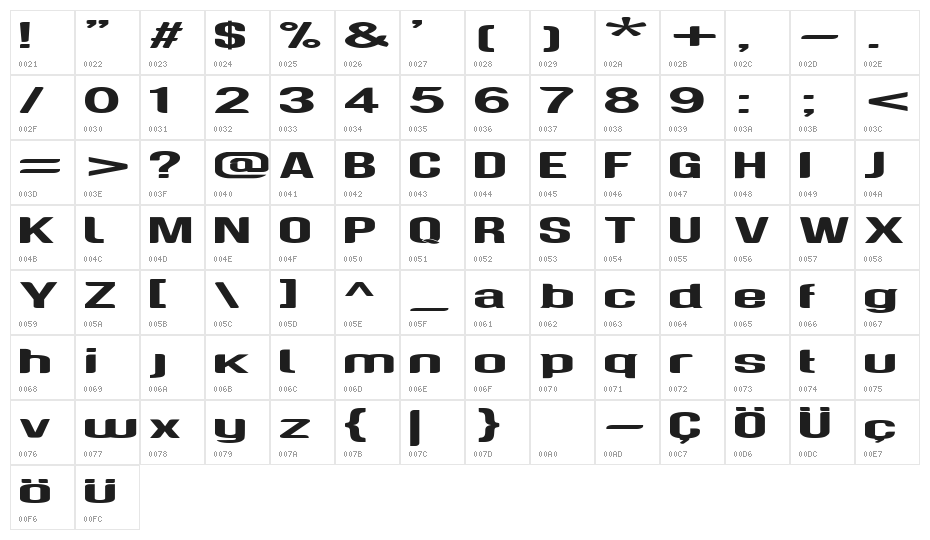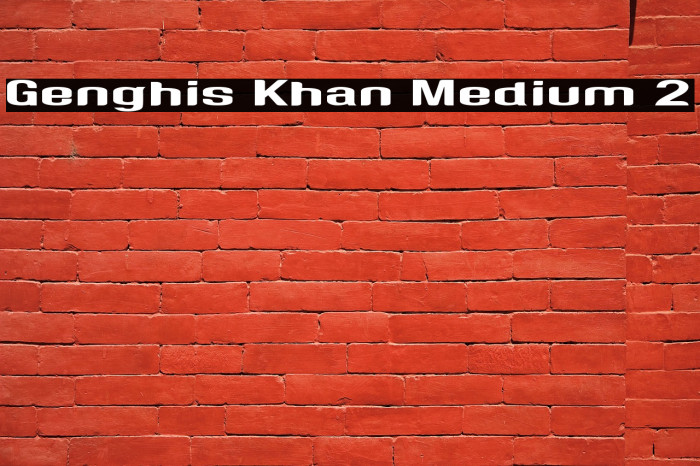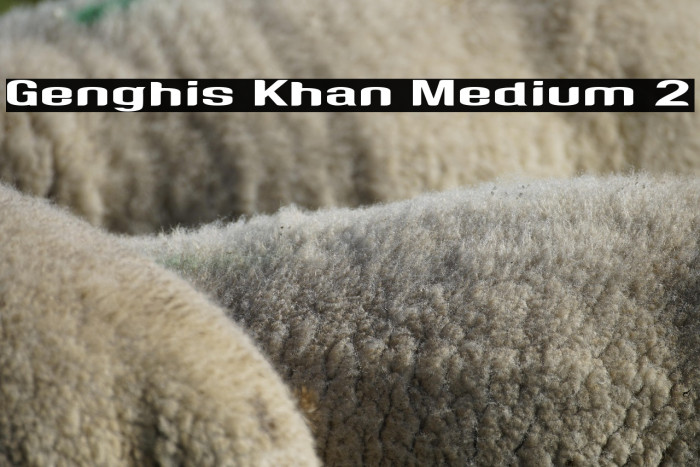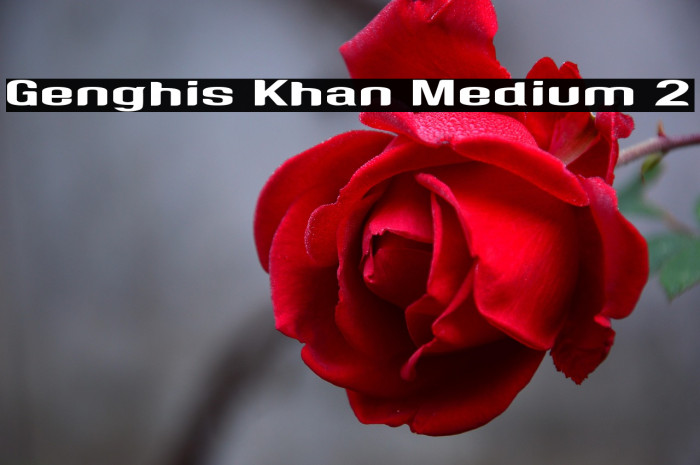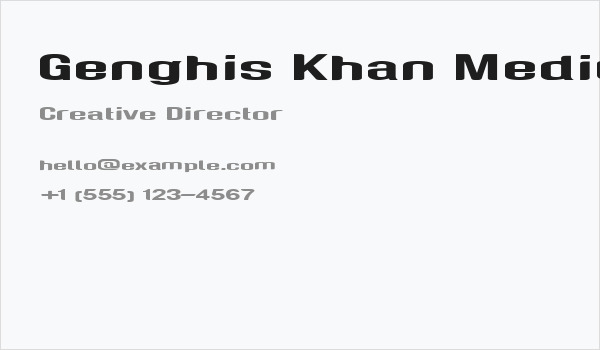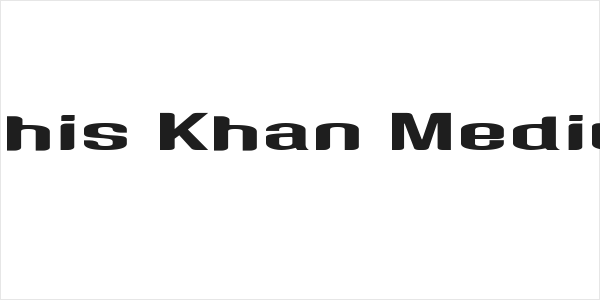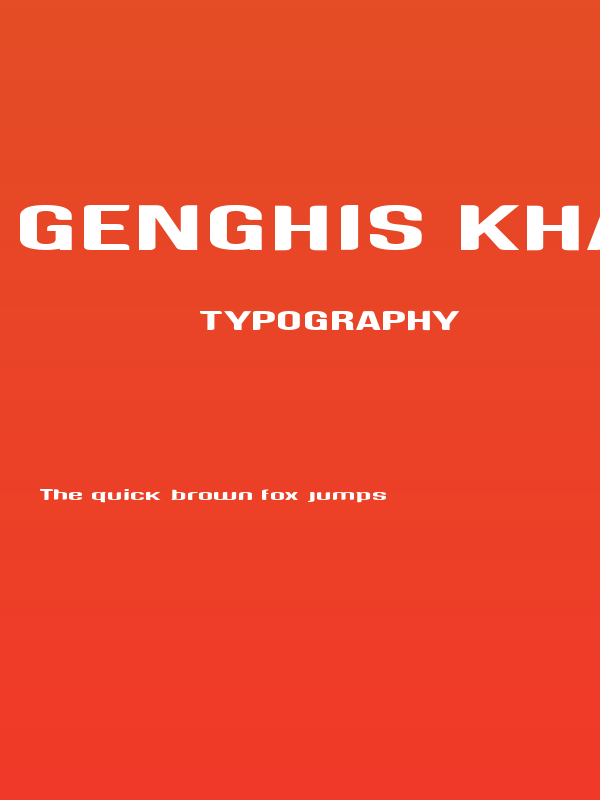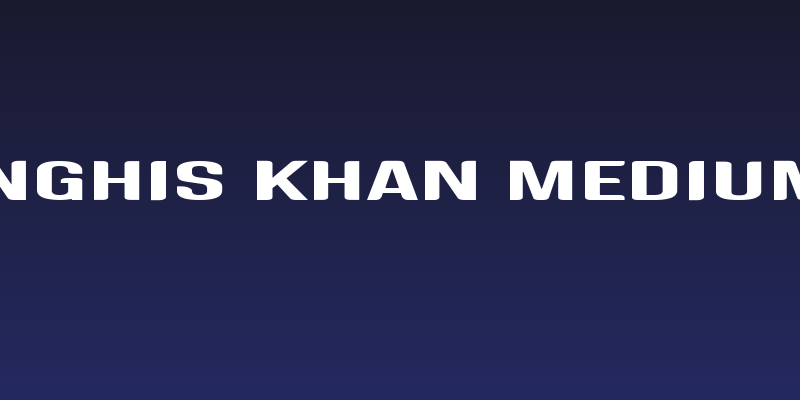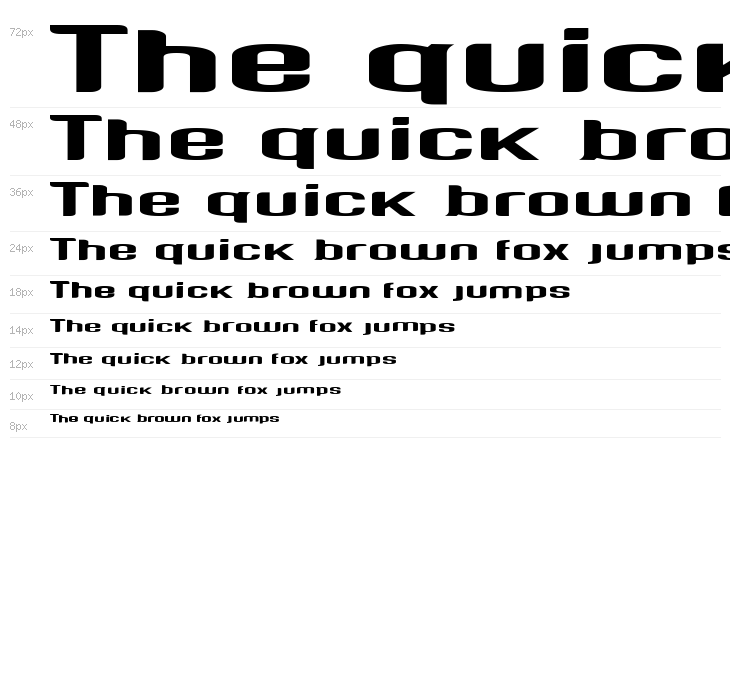
Genghis Khan Medium 2 Font
Genghis Khan Medium 2 Description
This font features a bold and impactful design with a modern aesthetic. The uppercase letters are strong and assertive, while the lowercase letters maintain a consistent weight, offering a harmonious balance. The numerals are clear and legible, making them suitable for various applications. Special characters are designed with precision, adding to the font's versatility. The overall style is contemporary, with a slight geometric influence, making it ideal for projects that require a strong visual presence.
| Proposed Projects | Ideal for branding, advertising, posters, and headlines that require a bold statement. |